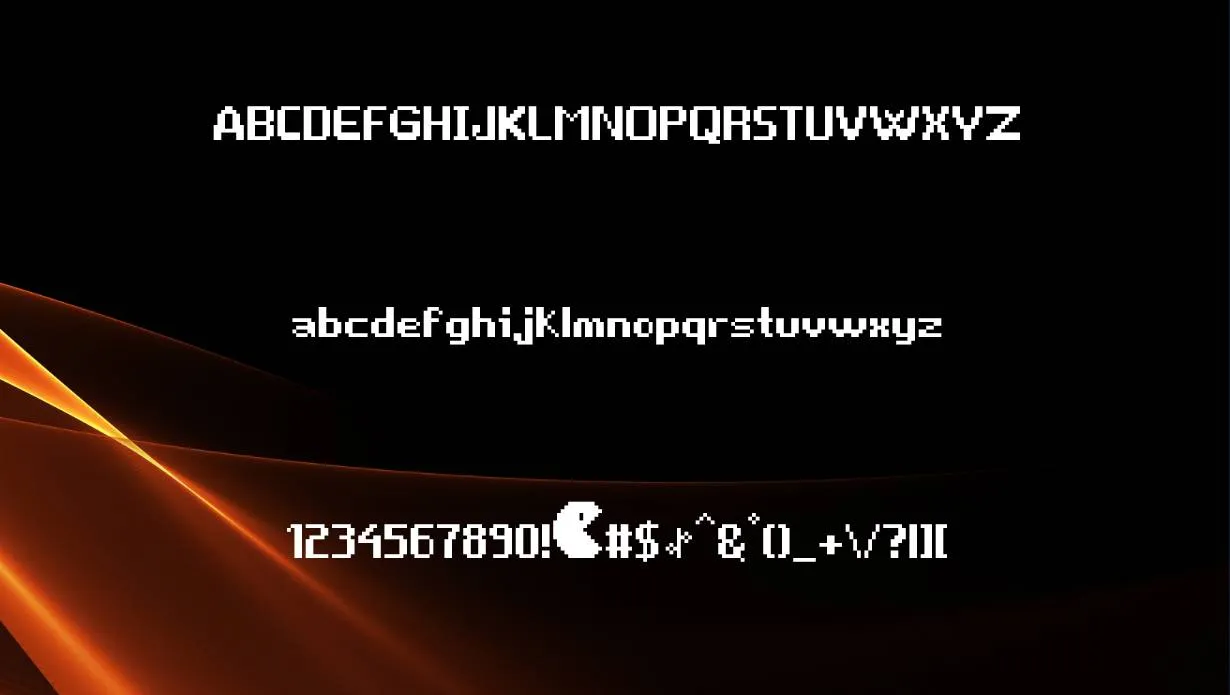
The Game Over Font is a blast from the past, reminiscent of the pixelated days of classic video games.
Its characters transport you to the arcade era, making it perfect for crafting nostalgic graphics in Adobe Photoshop, injecting a retro feel into web design with CSS, or creating a vintage gaming vibe in MS Word documents. This font effortlessly merges the fun of yesteryear with the design needs of today.